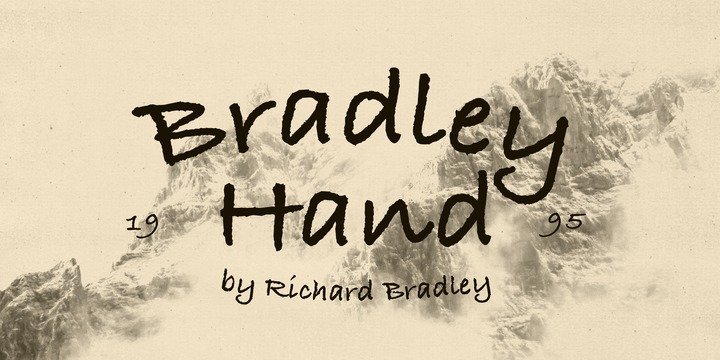
In today’s blog entry, we are showcasing the script typeface called Bradley Hand ITC Std Font. This typeface was designed by Richard Bradley and was released in 1995 with the help of the International Typeface Corporation.
Bradley Hand ITC Std Font is the bold typeface that has many similar typefaces listed inside google fonts. This is known as the great text generator that is available below for free download.
View of Bradley Hand ITC Std Font
Before moving ahead, let’s have a look at the appearance of this font that how does it will appear when you apply it to your graphic design.
Bradley Hand Itc Std Font View
Due to its clean texture, you may easily use this outstanding font for the ambitious heading, ebook covers, brand designs, cloth printing, official cards, precise emblems, and so on.
What Type of Font Is Bradley Hand ITC Std?
Bradley Hand ITC Std is the script typeface that was developed by Richard Bradley and it was then released by International Typeface Corporation in 1995.
What’s the Closest Font to Bradley Hand ITC Std?
The Marmalade Toast font is very close to this font.